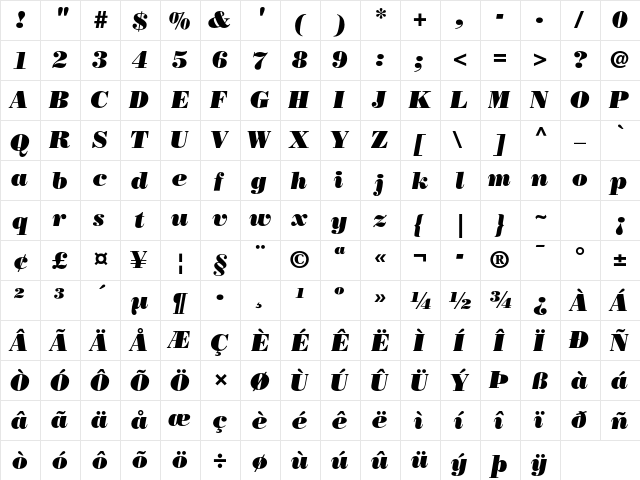
Bodoni Std Poster Italic
| Designer | Morris Fuller Benton |
Design Context for Bodoni Std Typeface
Bodoni Std offers clean, dependable letterforms without strong stylistic allegiance, making it a practical choice for designers who need flexibility. The slanted form adds forward momentum and visual energy.
Pro Tip: Try Bodoni Std for annotation and caption copy alongside an upright companion — the contrast in angle creates a dynamic but ordered typographic system.